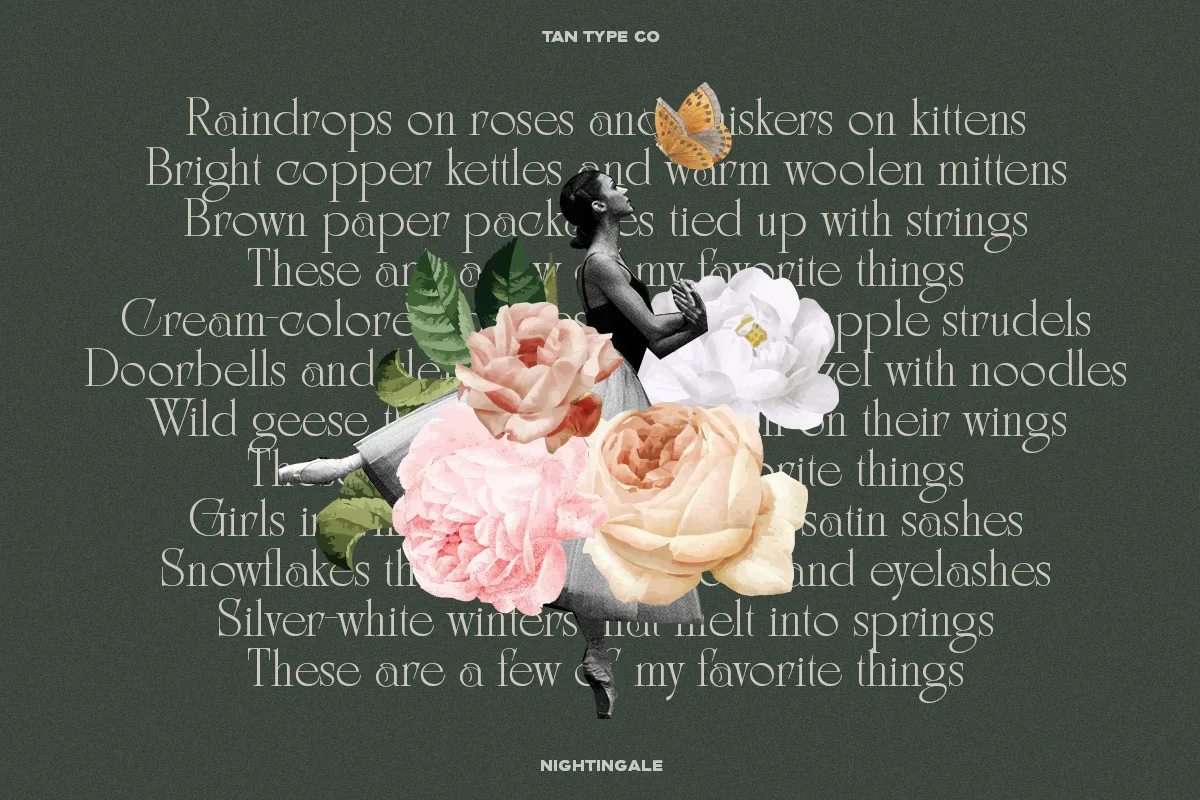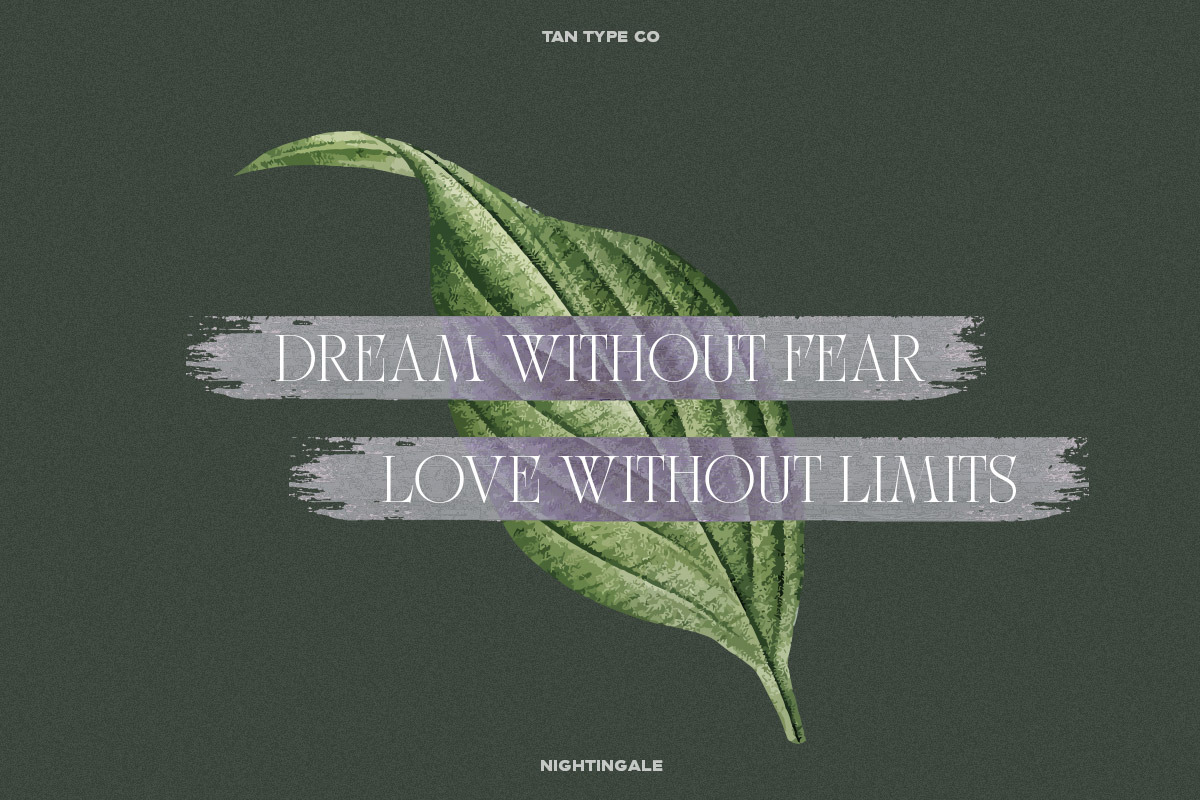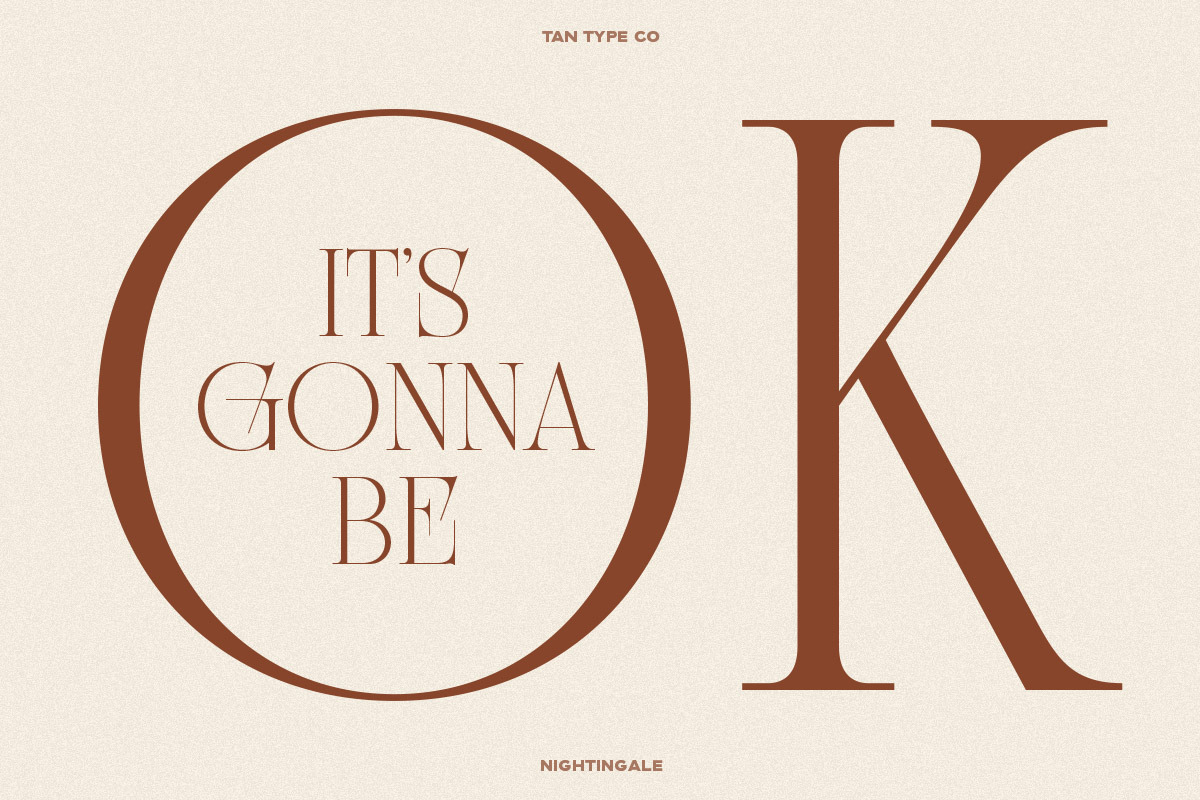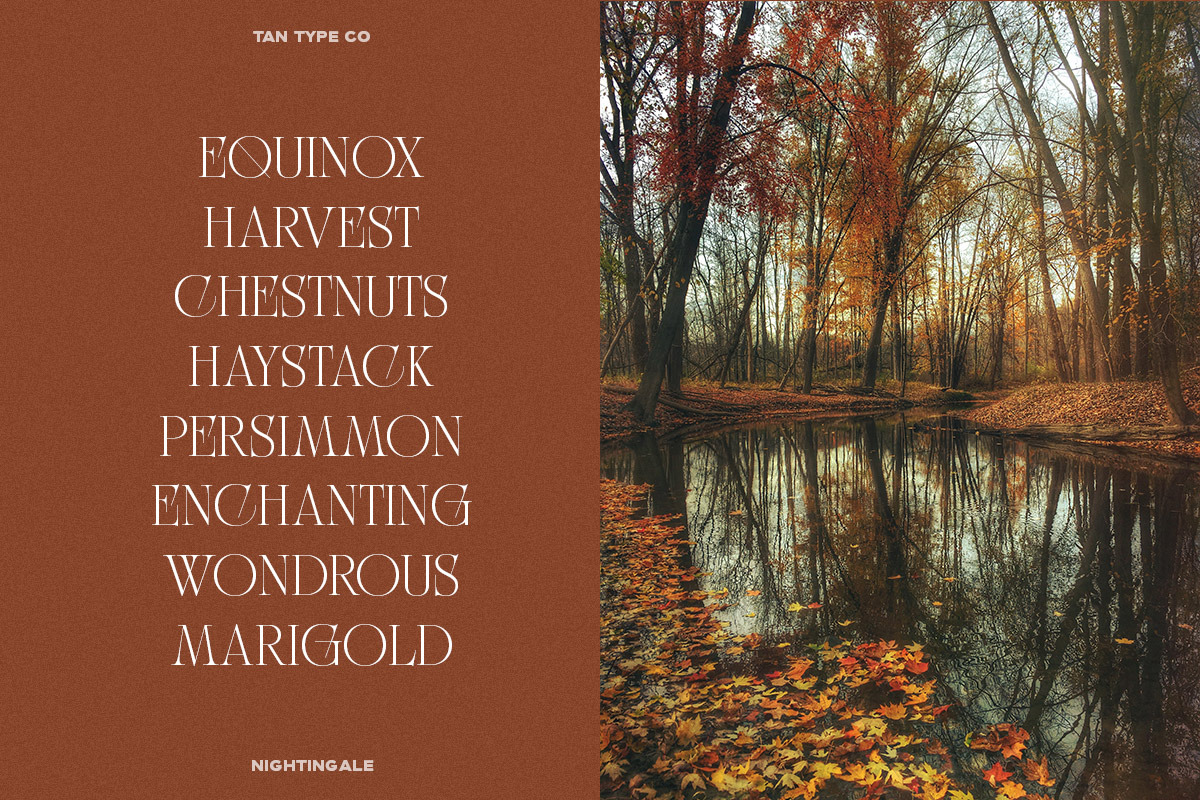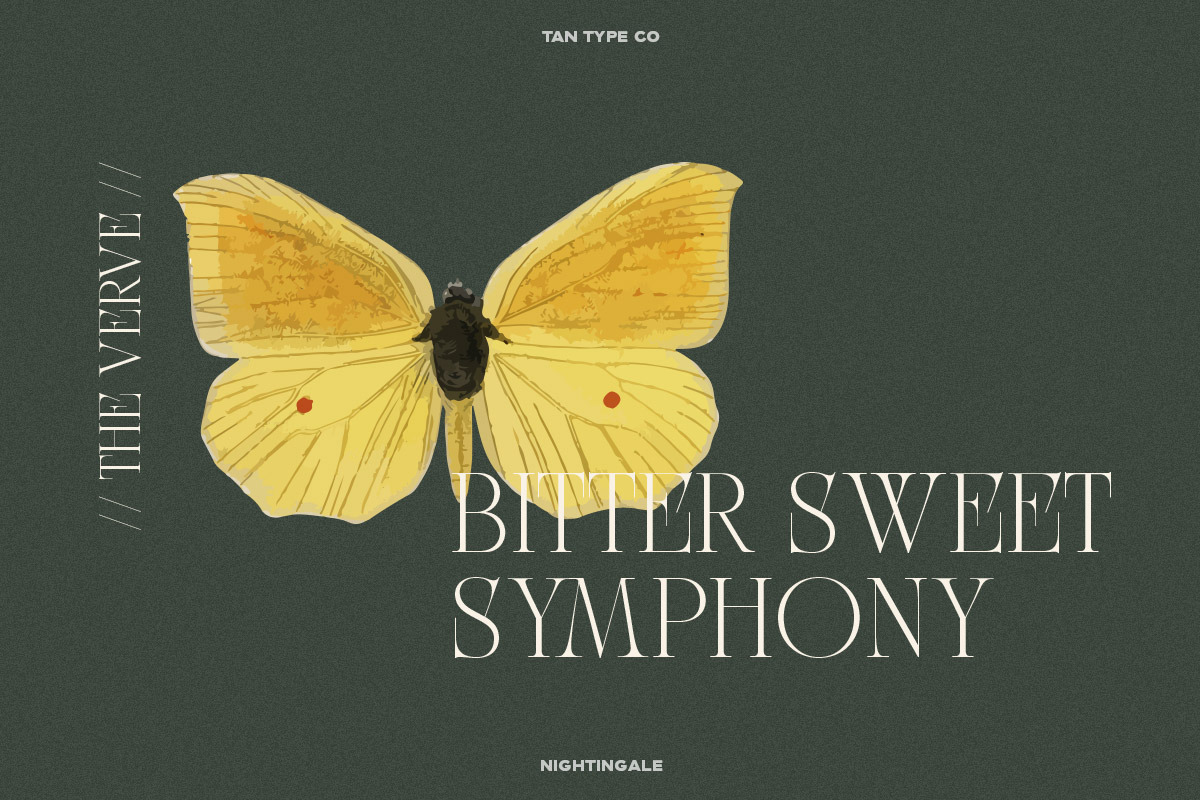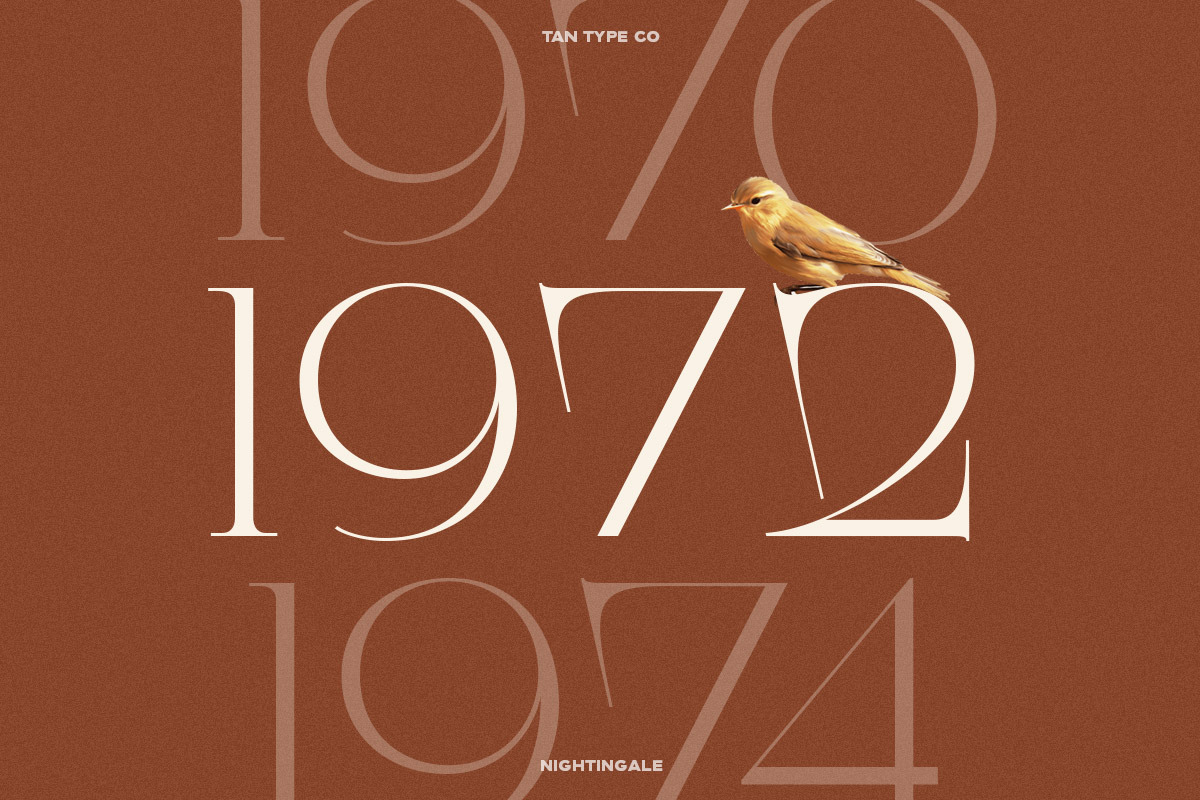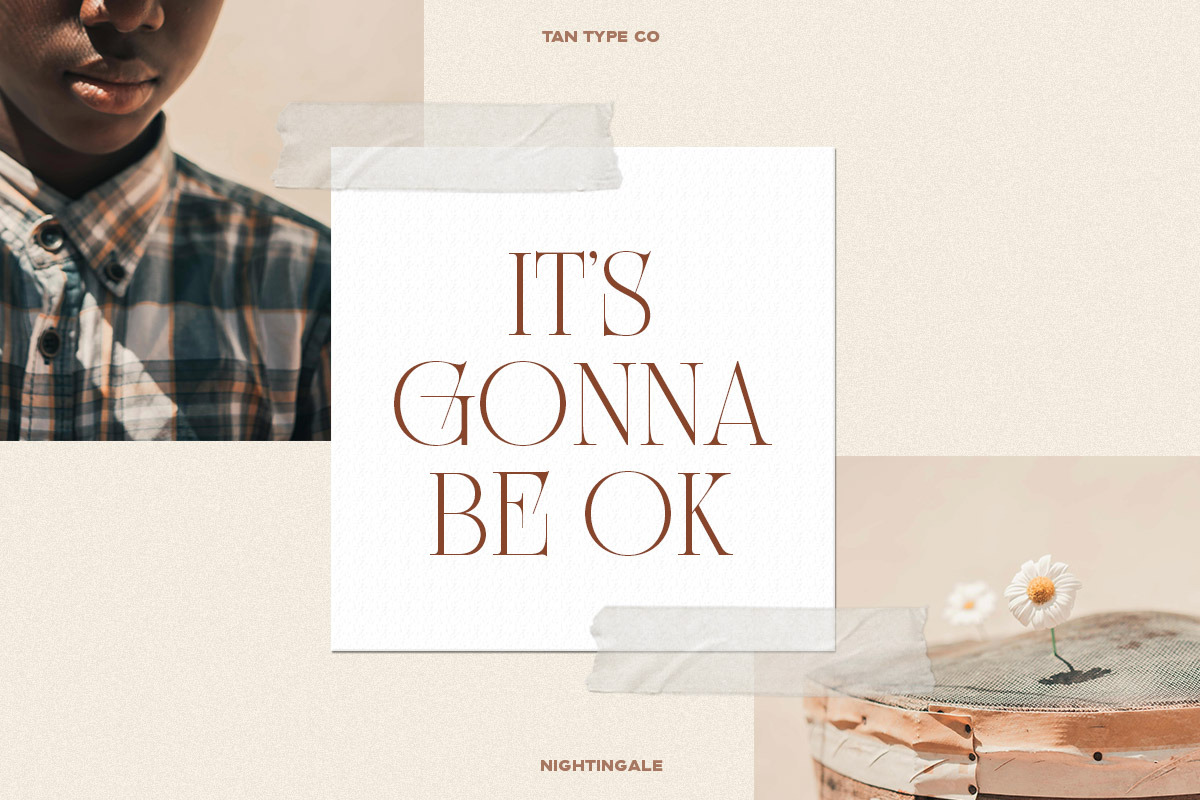
Tan Nightingale is an art deco inspired with dramatically elongated serif. With its clean and modern feel, Nightingale will definitely adds elegance when used.
Tan Nightingale Font Free Preview